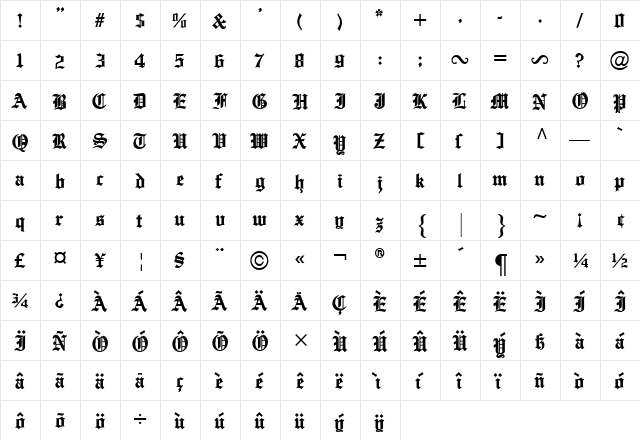
English Towne Regular
Design Context for English Towne Typeface
English Towne is a composed and adaptable typeface that performs quietly and consistently across a wide range of design contexts.
Pro Tip: Pair English Towne with a font of contrasting weight or personality to build a more expressive typographic hierarchy.